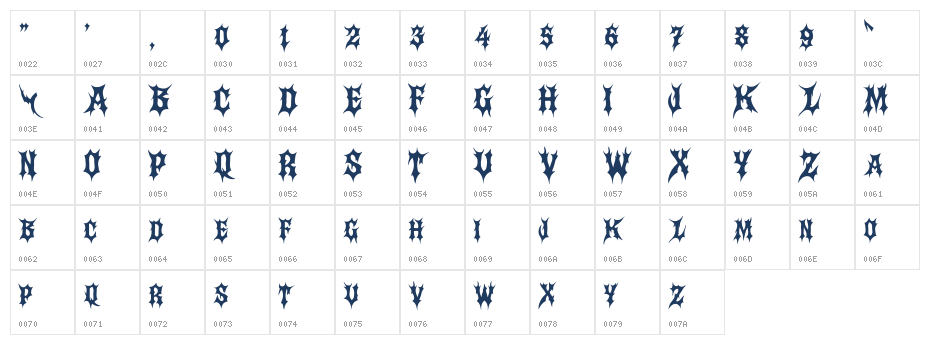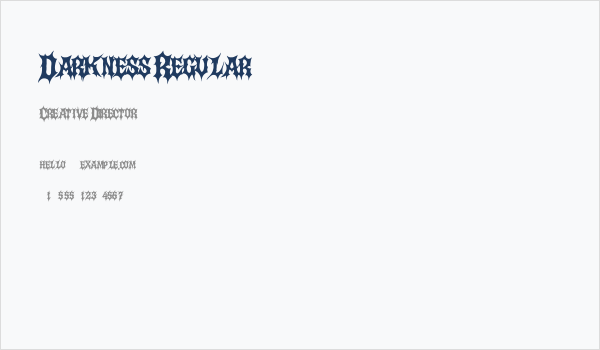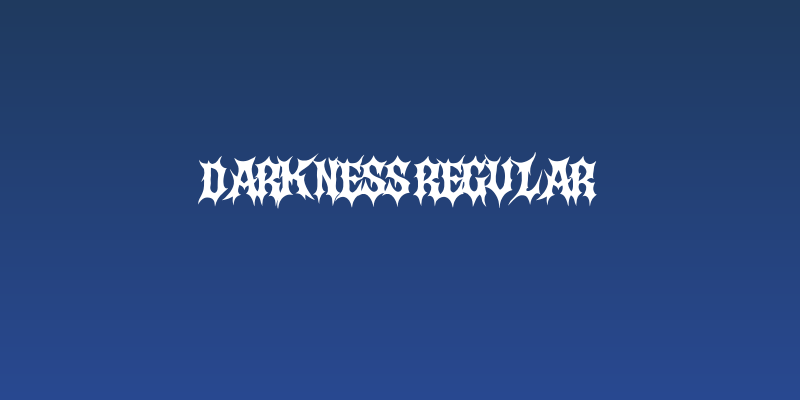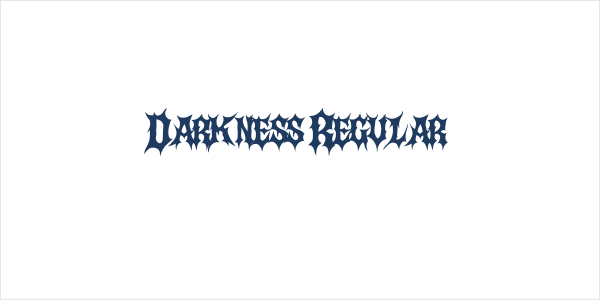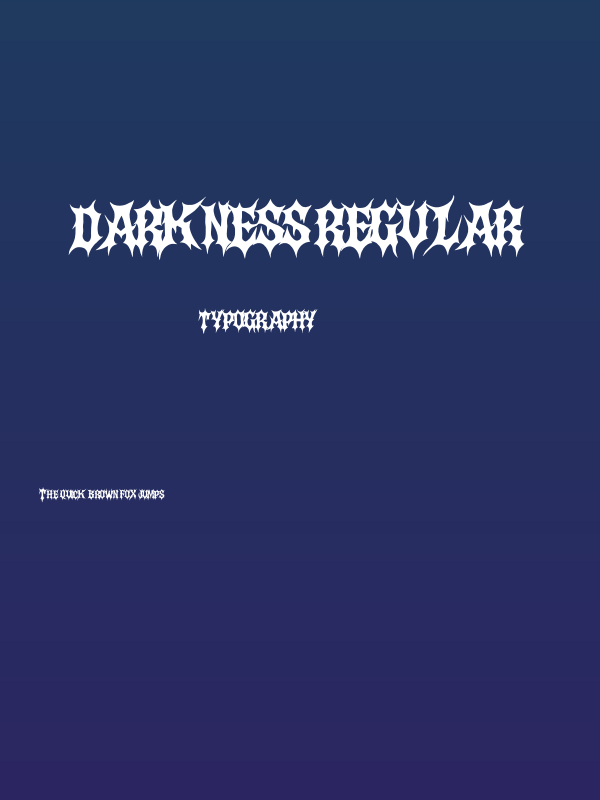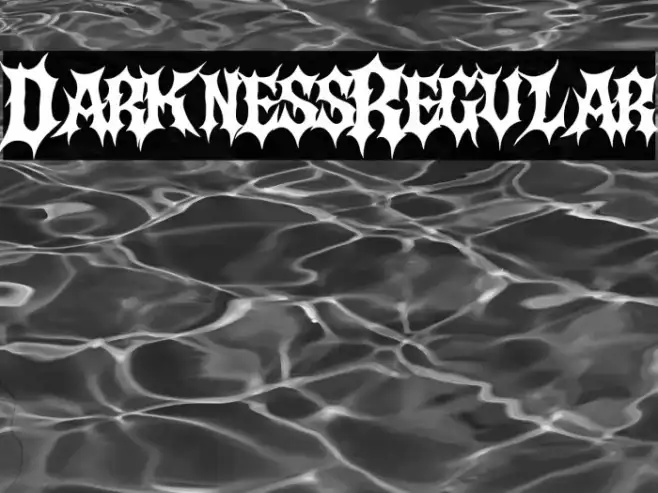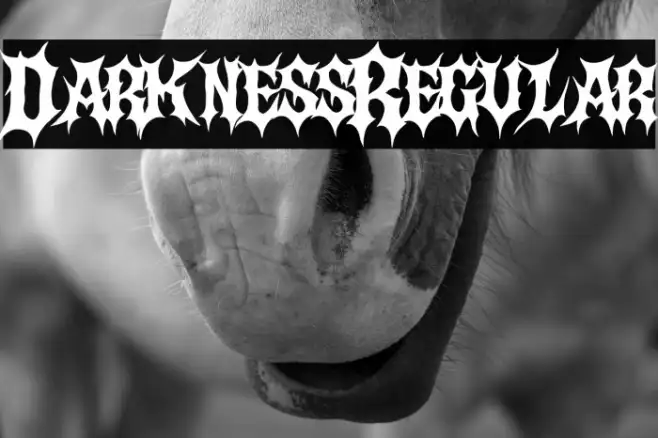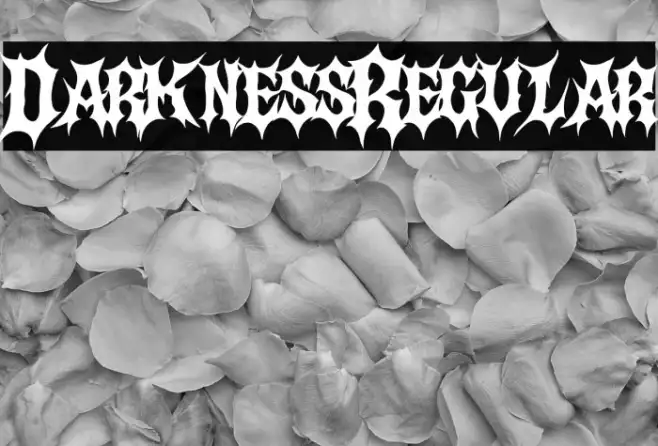
Darkness Regular Font
Darkness Regular Description
A decorative, gothic-style font with sharp, spiked edges and a bold appearance.
| Overall Style | Gothic, Decorative |